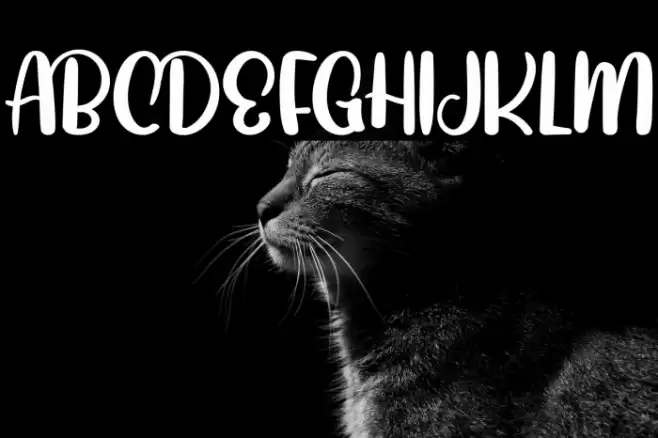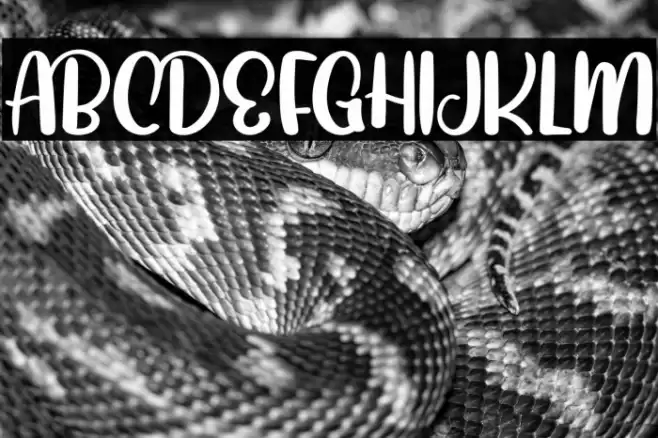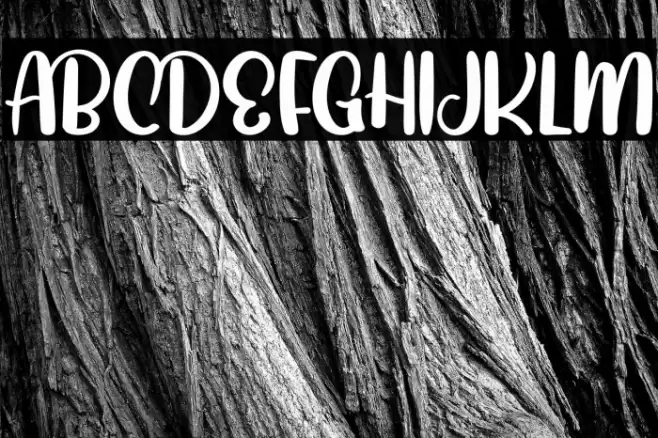
JoyfullyFREE Font
JoyfullyFREE Description
This font features a playful and bold script style, characterized by its smooth, flowing curves and thick strokes. The letters are interconnected, giving it a cohesive and dynamic appearance. The uppercase and lowercase letters maintain a consistent style, with rounded edges and a slight slant, adding to its casual and friendly look. The font's boldness ensures high readability, making it suitable for eye-catching designs. Its whimsical nature makes it ideal for creative projects that require a touch of fun and personality.
A playful, bold script font with smooth, flowing curves and thick strokes from Uncategorized fonts.